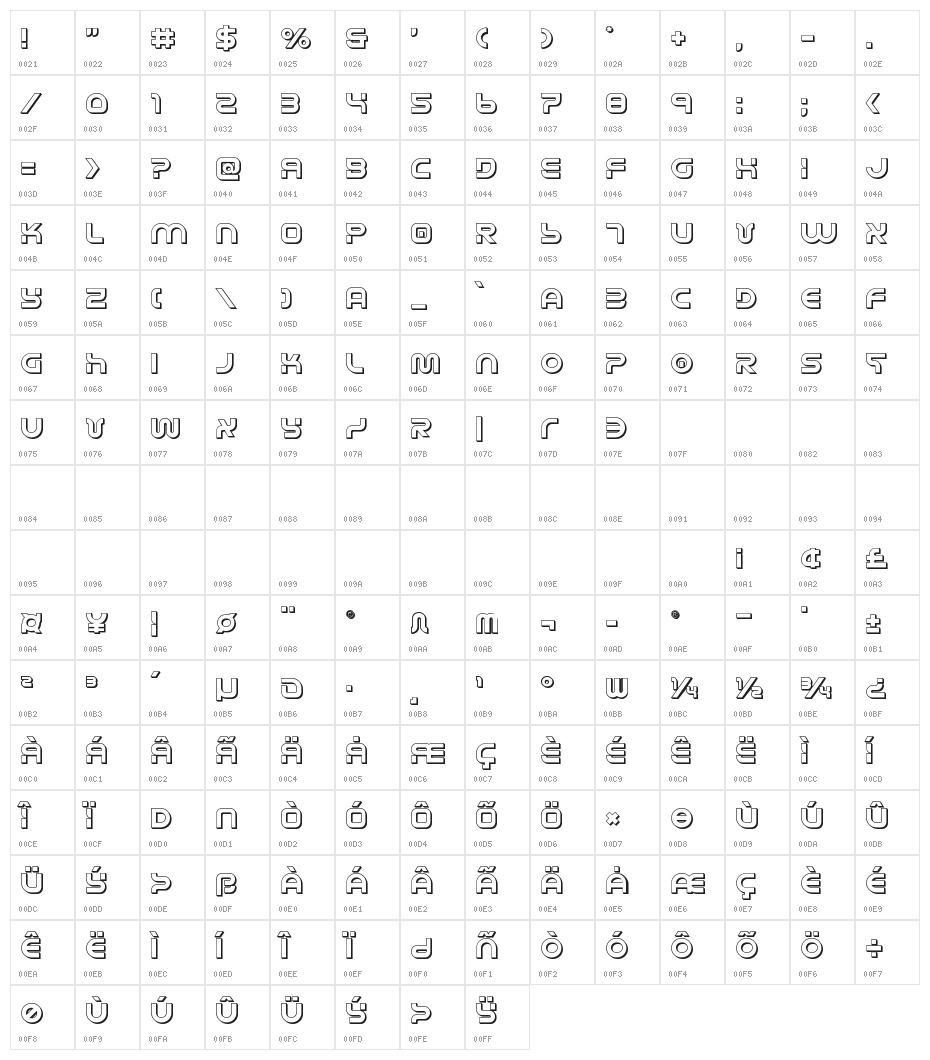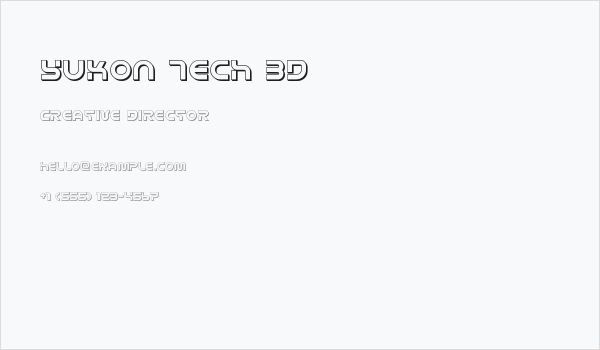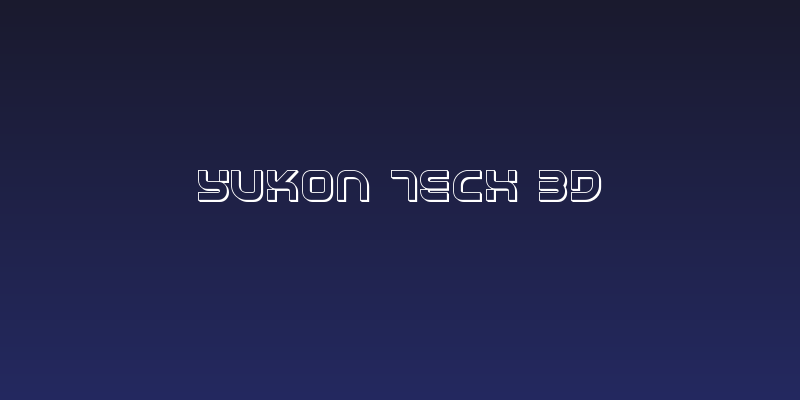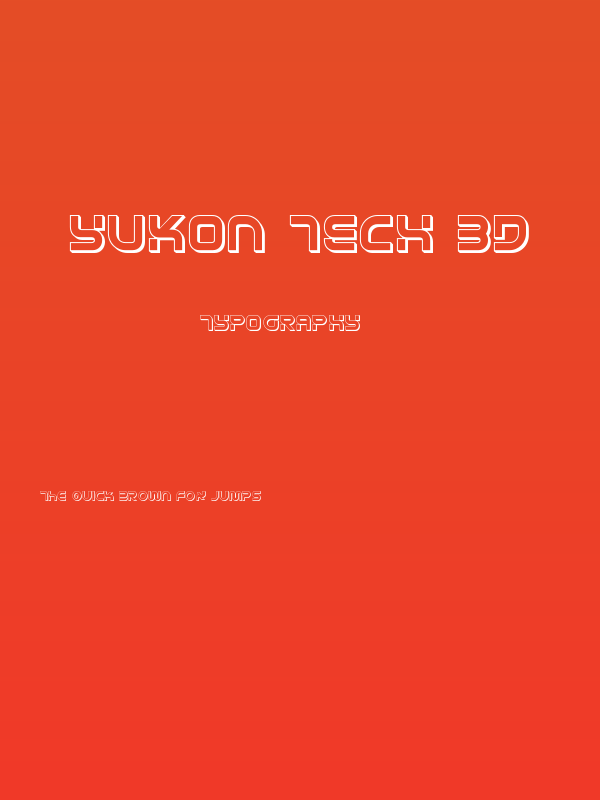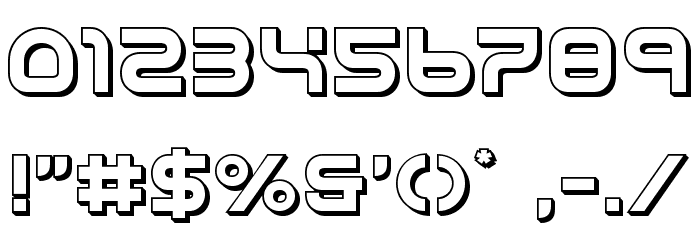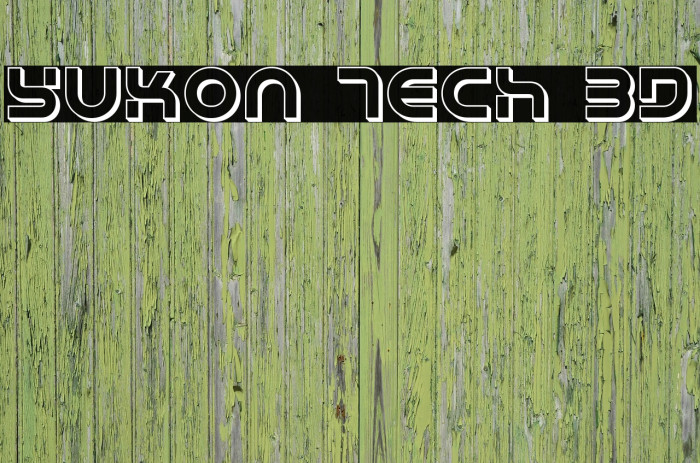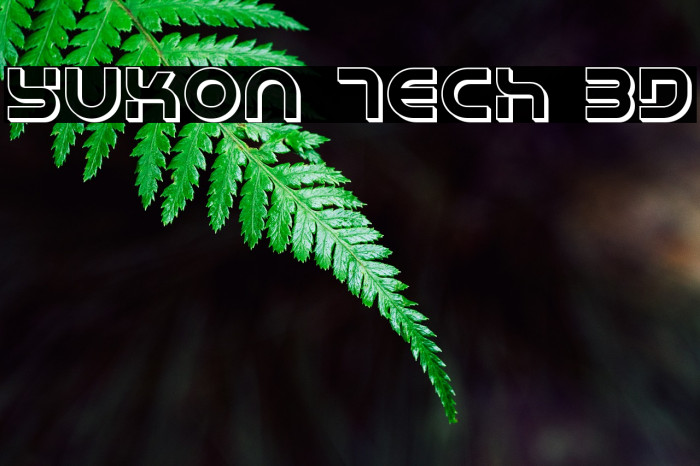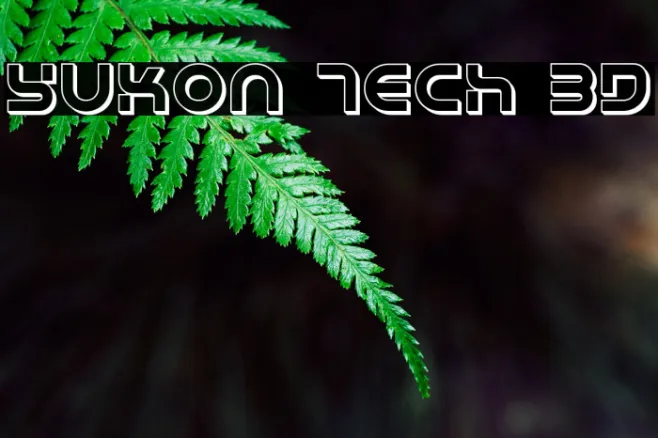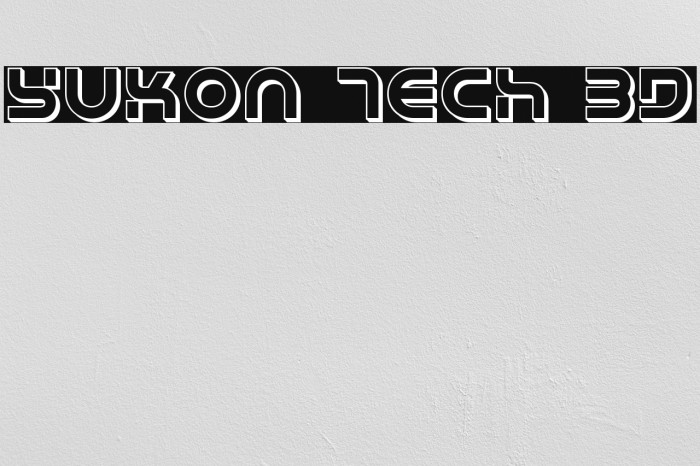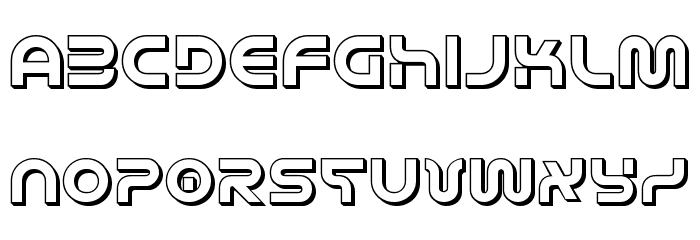
Yukon Tech 3D Font
Yukon Tech 3D Description
This font features a futuristic, geometric design with a 3D effect, characterized by bold, rounded edges and a hollow interior. The uppercase and lowercase letters maintain a consistent style, with a focus on symmetry and balance. The numerals and special characters follow the same design principles, ensuring a cohesive look across all characters. The font's unique style makes it stand out, ideal for projects that require a modern and technological aesthetic.
YUKON-TECH-3D UPPERCASE
YUKON-TECH-3D LOWERCASE
YUKON-TECH-3D OTHER CHARS
| Proposed Projects | Ideal for technology branding, sci-fi themed projects, video game titles, and modern advertising. |